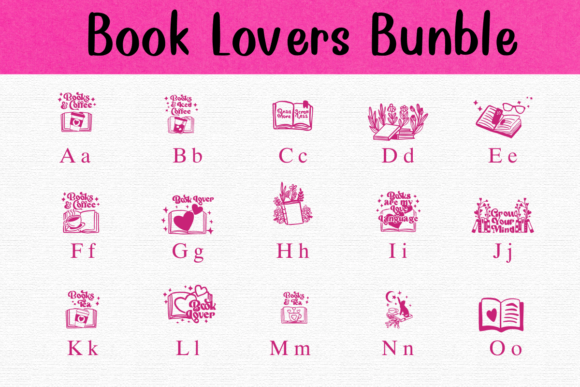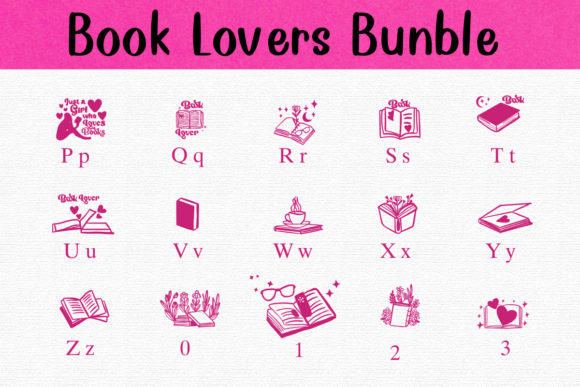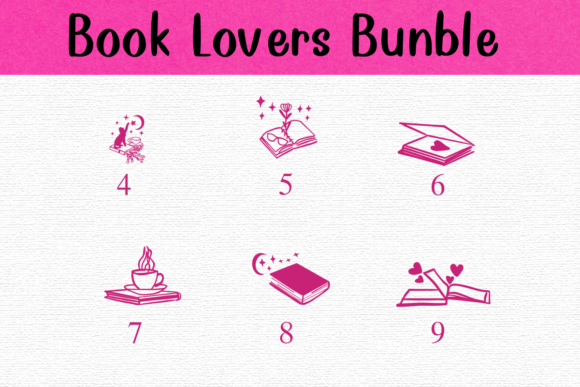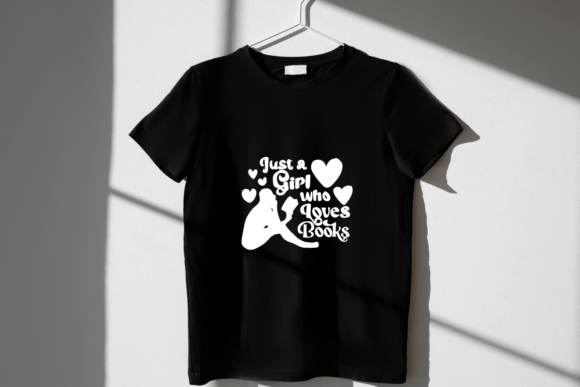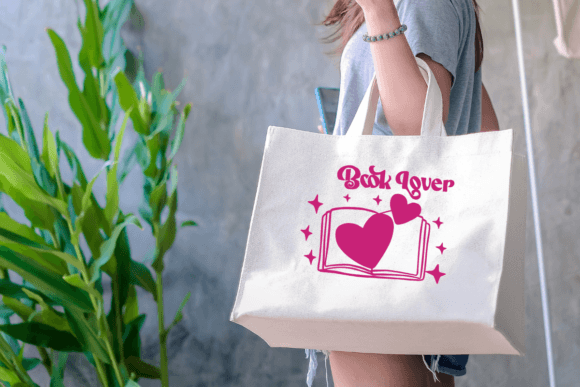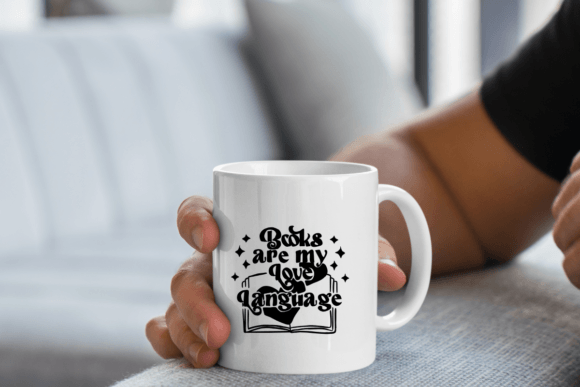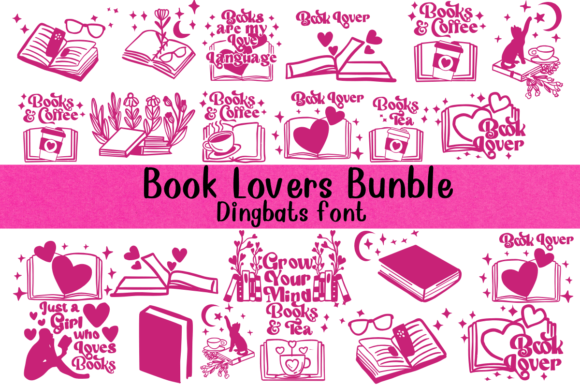
The Book Lovers Bundle Font: A Designer’s Dream Come True
I’ll never forget the time I was working on a project for a book club, trying to create a poster that would make their latest read come alive. I had all the graphics and text ready, but something was missing – a font that would capture the essence of book lovers everywhere. That’s when I stumbled upon the “Book Lovers Bundle” font, and it was love at first sight! 💕
This dingbat font is a game-changer for designers, crafters, and creative hobbyists who want to add a touch of whimsy and personality to their projects. Instead of letters, it features adorable little pictures and symbols that are all about books and reading. From bookmarks and posters to social media graphics and gift tags, the possibilities are endless!
• ✨ Unique and creative designs that will make your projects stand out
• 💖 Charming quotes and images that are perfect for book enthusiasts
While the Book Lovers Bundle font is amazing, there are a few things to keep in mind: 🤔
The Story Behind the Book Lovers Bundle Font
The Book Lovers Bundle font was created with book enthusiasts in mind. The designer, a self-proclaimed bookworm, wanted to create a font that would capture the magic of reading and sharing stories. With a passion for literature and design, they poured their heart and soul into crafting a unique and charming font that’s perfect for anyone who loves books.
A: The Book Lovers Bundle font is perfect for a wide range of projects, including bookmarks, posters, social media graphics, gift tags, and more!